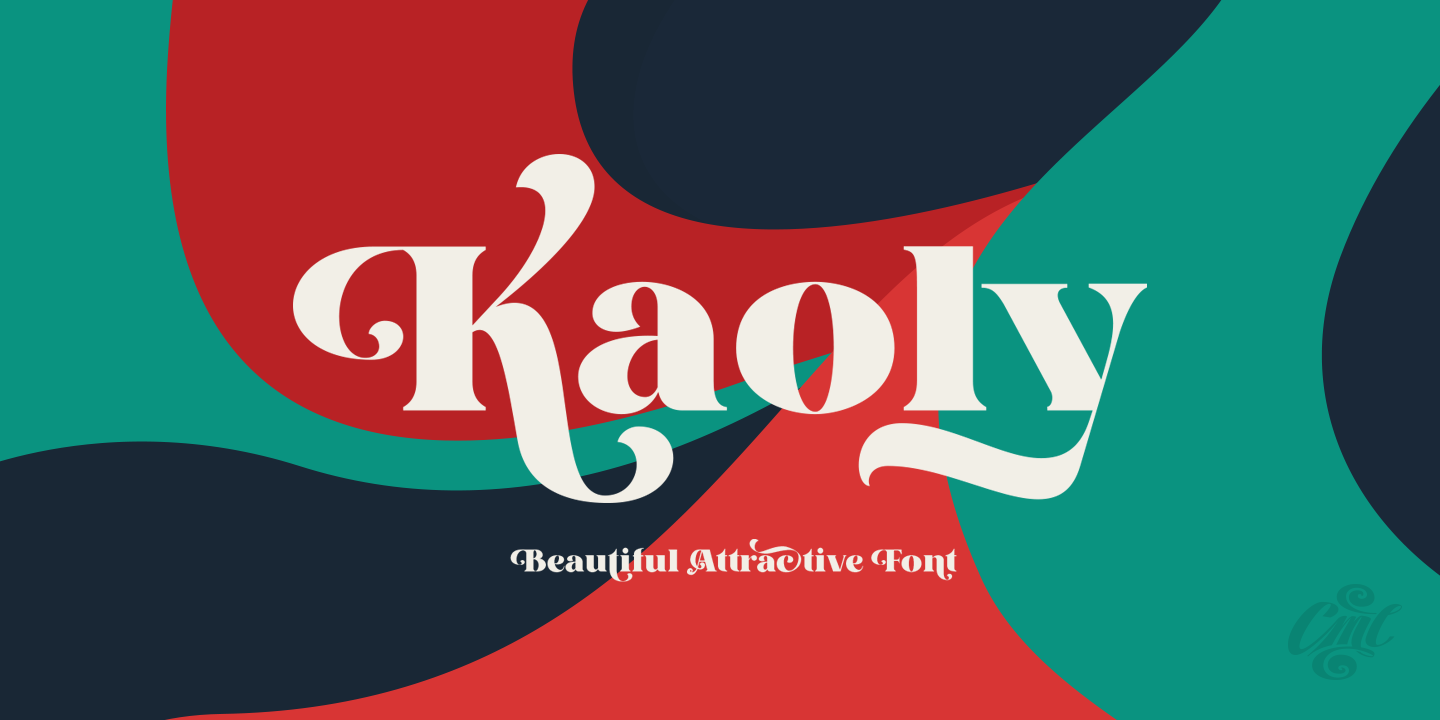
The Kaoly Font is a fantastic choice for a wide array of design projects. Imagine it bringing a playful yet sophisticated touch to children's book illustrations, adding warmth to invitation designs, creating engaging social media posts, or making greeting cards truly stand out. It's also perfect for branding for artisanal businesses, packaging for natural products, and even for charming website headers that need a friendly and inviting feel.
What makes the Kaoly Font so exciting is its unique blend of handcrafted charm and modern legibility. It possesses a delightful whimsy that instantly captivates, while maintaining a clarity that ensures your message is always understood. Its organic curves and friendly appeal infuse every design with a sense of authenticity and approachability, making it feel both personal and professional.
The Kaoly Font typically comes with a versatile set of styles to enhance your creative freedom. You can expect to find Regular and Bold weights, along with potential italic versions. Some families may also include alternative characters or ligatures, adding to its customizability. For those seeking a distinctive and charming typeface, the Kaoly Font Free Download offers an excellent opportunity to explore its potential.